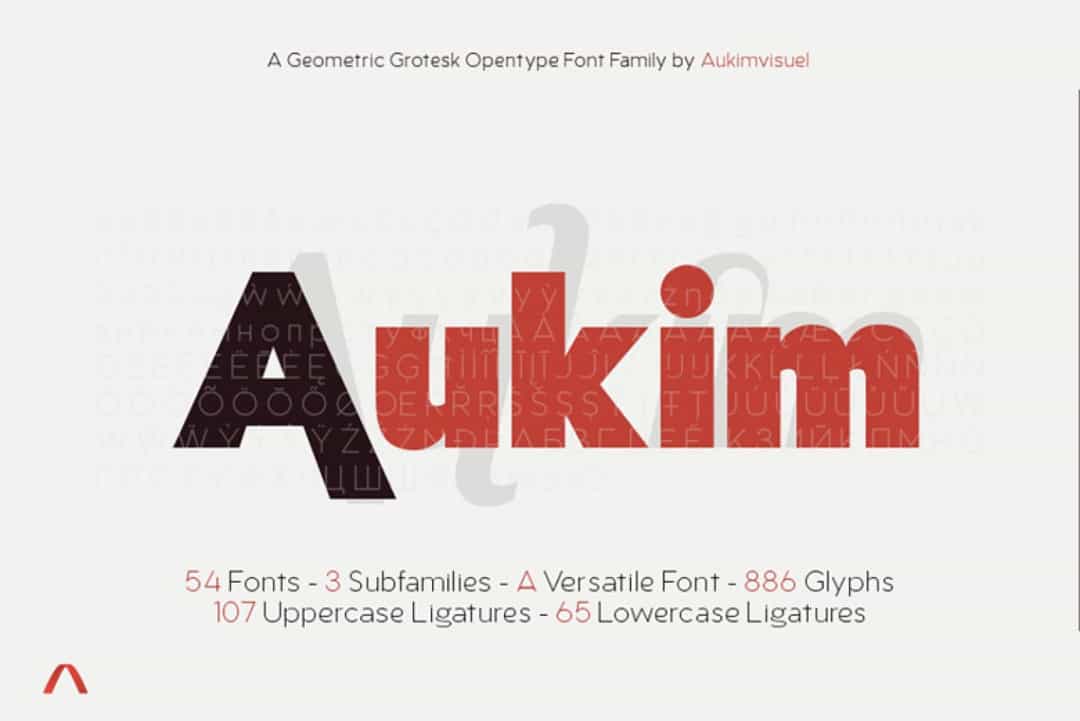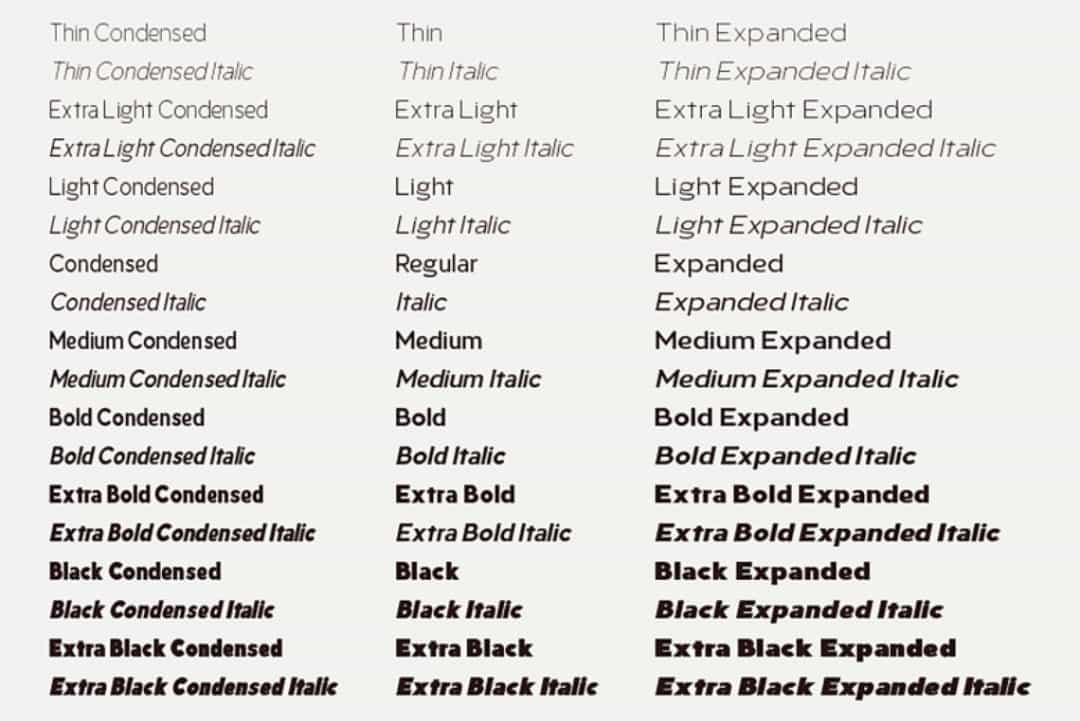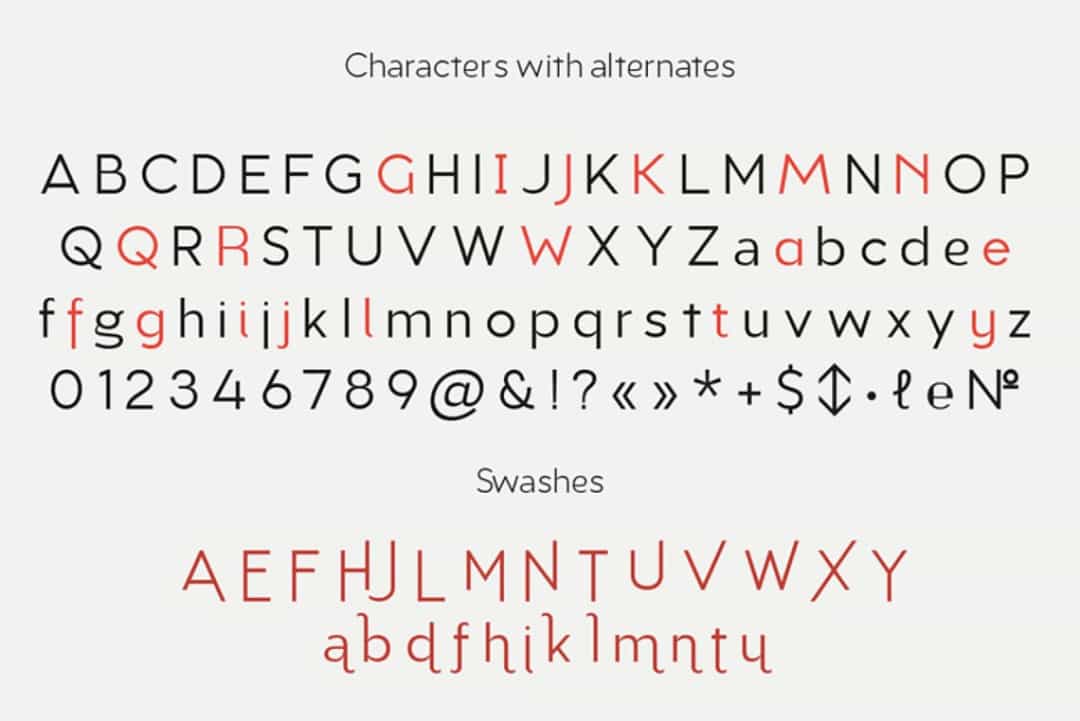
Aukim is an impressive, distinctive, ligature-rich font which will add new style to your text. Thanks to OpenType characteristics, Aukim can be made flexible; coming in three subfamilies (condensed regular, normal and extended), 54 fonts in total with nine weights each featuring their true italics; including 886 glyphs overall comprising of 107 uppercase and 65 lowercase ligatures per font family.